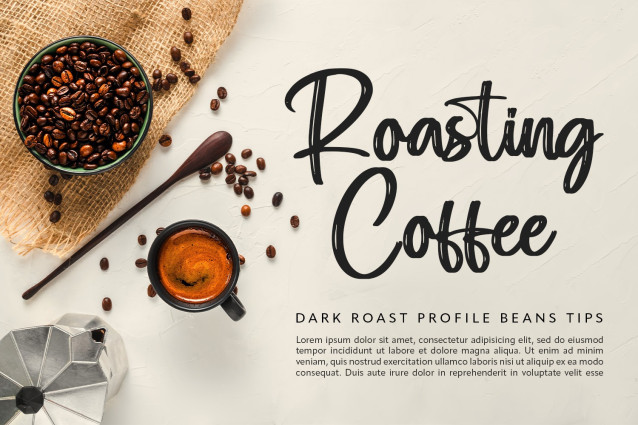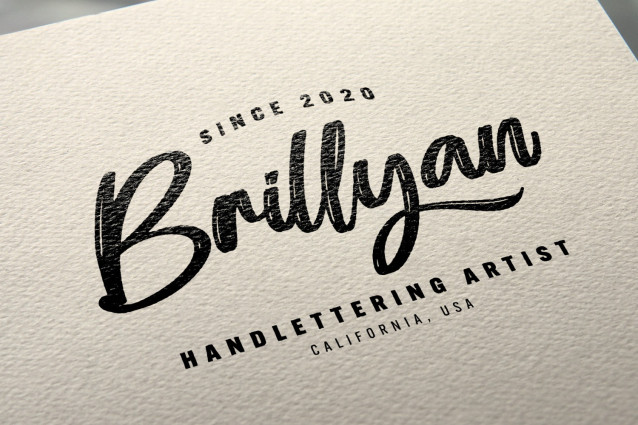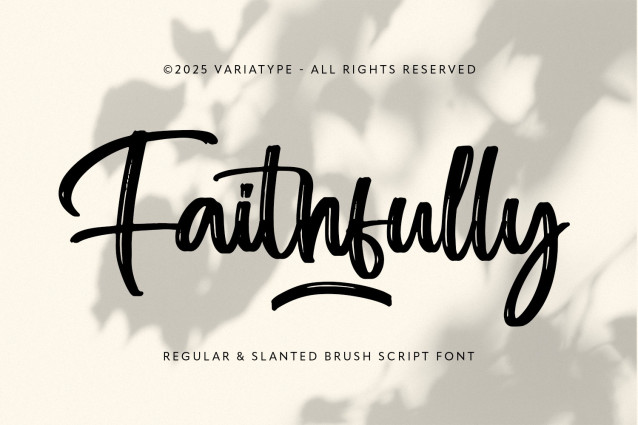
Faithfuly Script Font
Faithfuly Script Font is a natural brush script font with expressive strokes and an organic handwritten feel, designed to bring warmth, authenticity, and personality to your designs. Featuring both regular and slanted styles, this font captures a raw yet elegant rhythm that feels personal and dynamic. Perfect for branding, logos, packaging, quotes, social media, apparel, and creative projects that need a genuine handcrafted touch with strong visual impact.